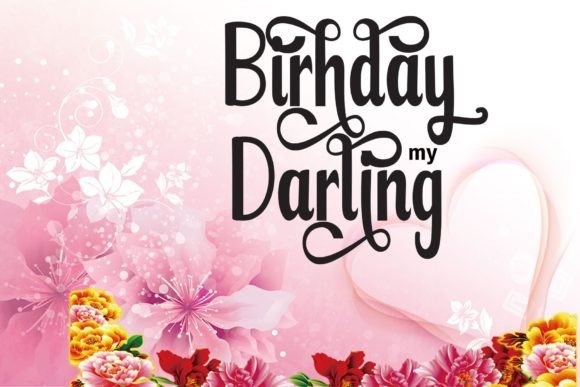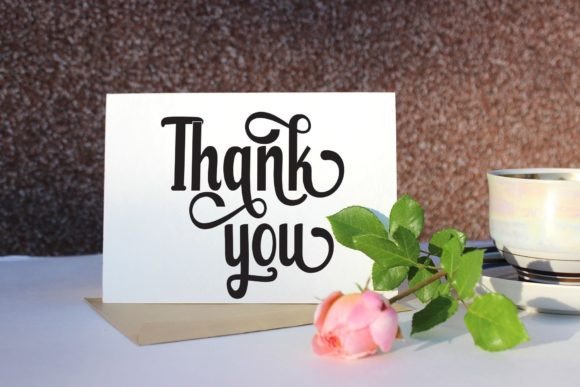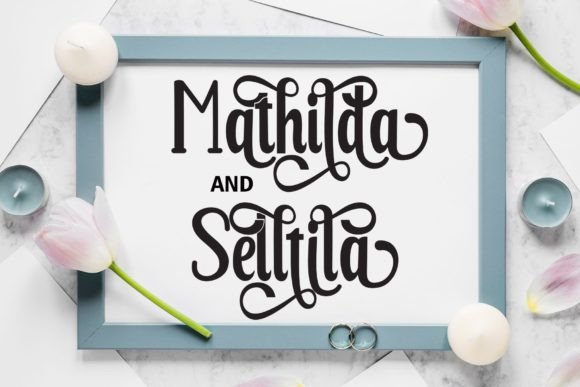
About Holliday Font
“The Holliday” is a beautiful handwritten font inspired by vintage typography, specifically the cool and edgy styles reminiscent of gothic and horror themes. Its unique design adds a touch of mystery and sophistication, making it ideal for various creative projects. Whether you’re working on alcoholic beverage packaging, tattoos, pomade designs, or barbershop branding, incorporating “The Holliday” into your work will undoubtedly make it stand out.
The font’s distinctive and artistic flair captures the essence of old-world charm, giving your designs a vintage and timeless appeal. Its suitability for gothic and horror-themed designs makes it perfect for projects that require an element of darkness and intrigue. From labels on alcoholic beverages to promotional materials for barbershops, this font adds a touch of sophistication and allure to your creations.
One of the standout features of “The Holliday” is its PUA encoding, allowing easy access to a wide range of glyphs and swashes. With this feature, you can customize and personalize your designs effortlessly, incorporating unique and artistic elements into your typography compositions. The availability of these additional characters enhances the font’s flexibility, enabling you to create visually striking and memorable designs.
Incorporating “The Holliday” into your creative projects empowers you to infuse them with a sense of mystery and vintage charm. Its unique design and access to diverse glyphs and swashes make it a valuable asset for designers seeking a font that exudes sophistication and intrigue. Embrace the font’s artistic flair, and let it enhance your packaging, tattoos, branding, and various other design works, ensuring they exude a captivating and enigmatic vibe.